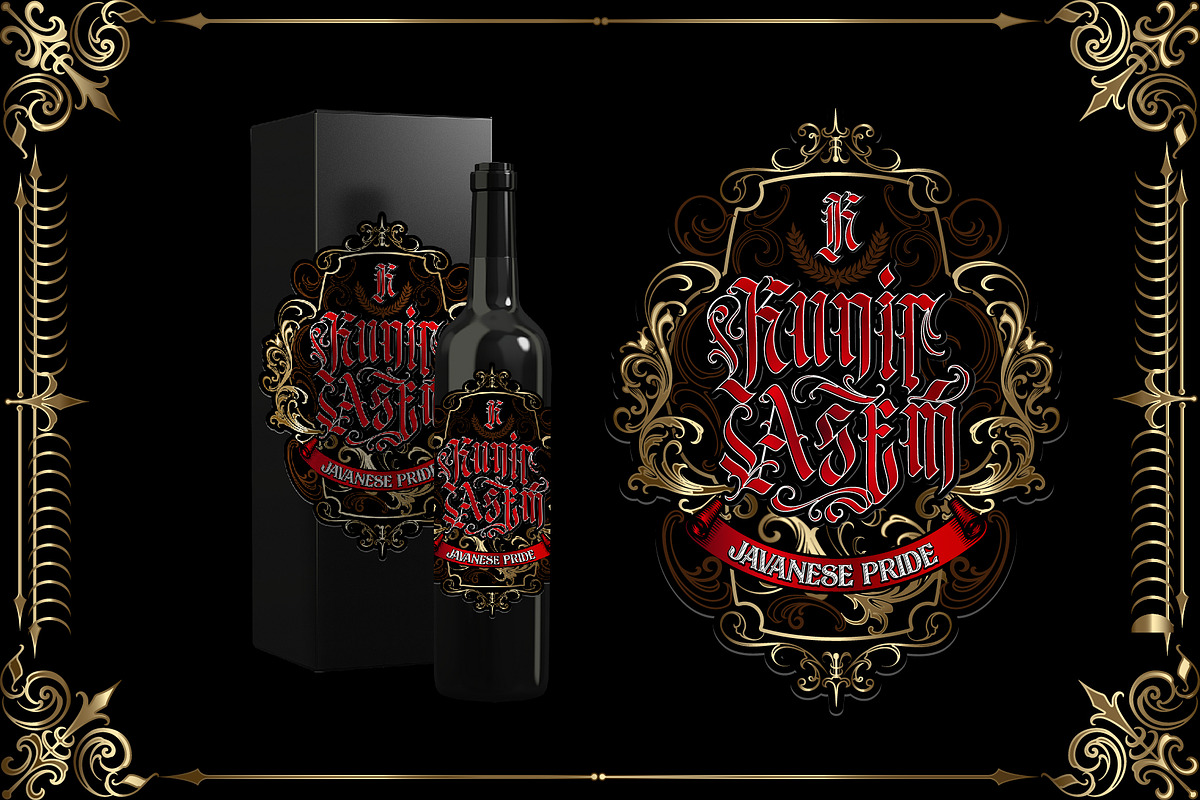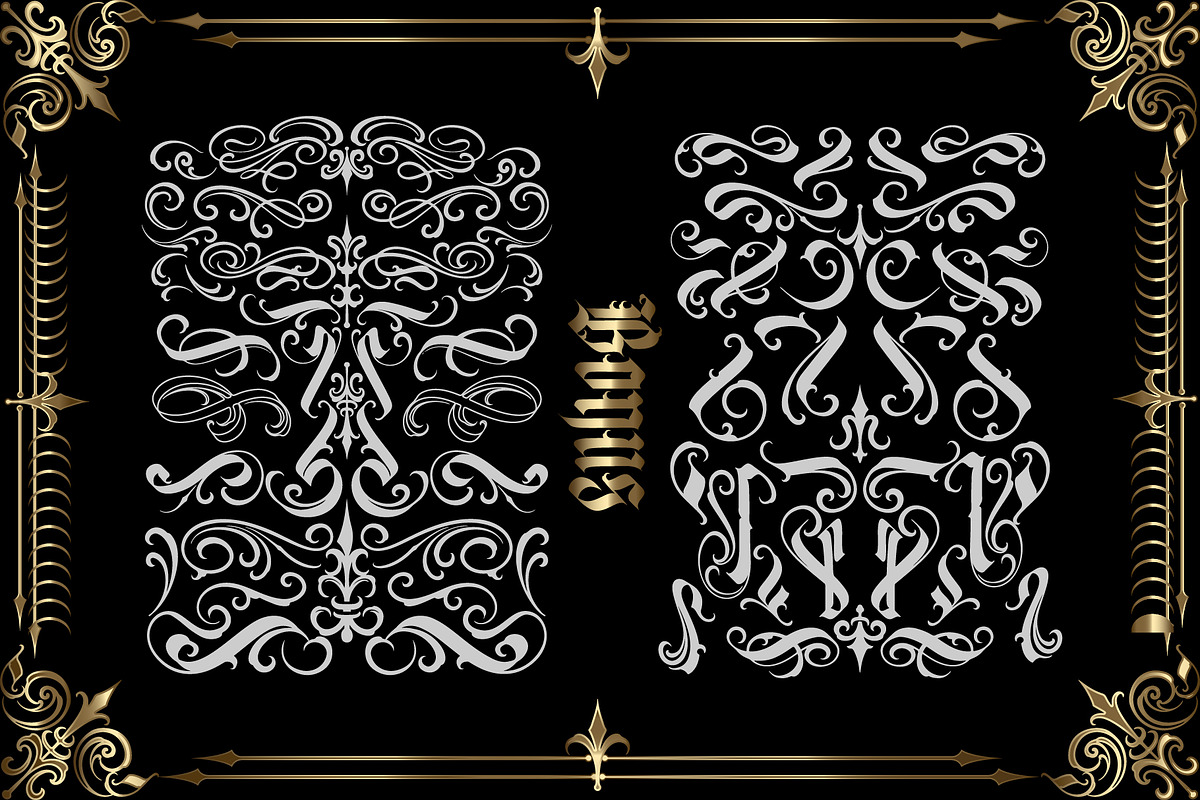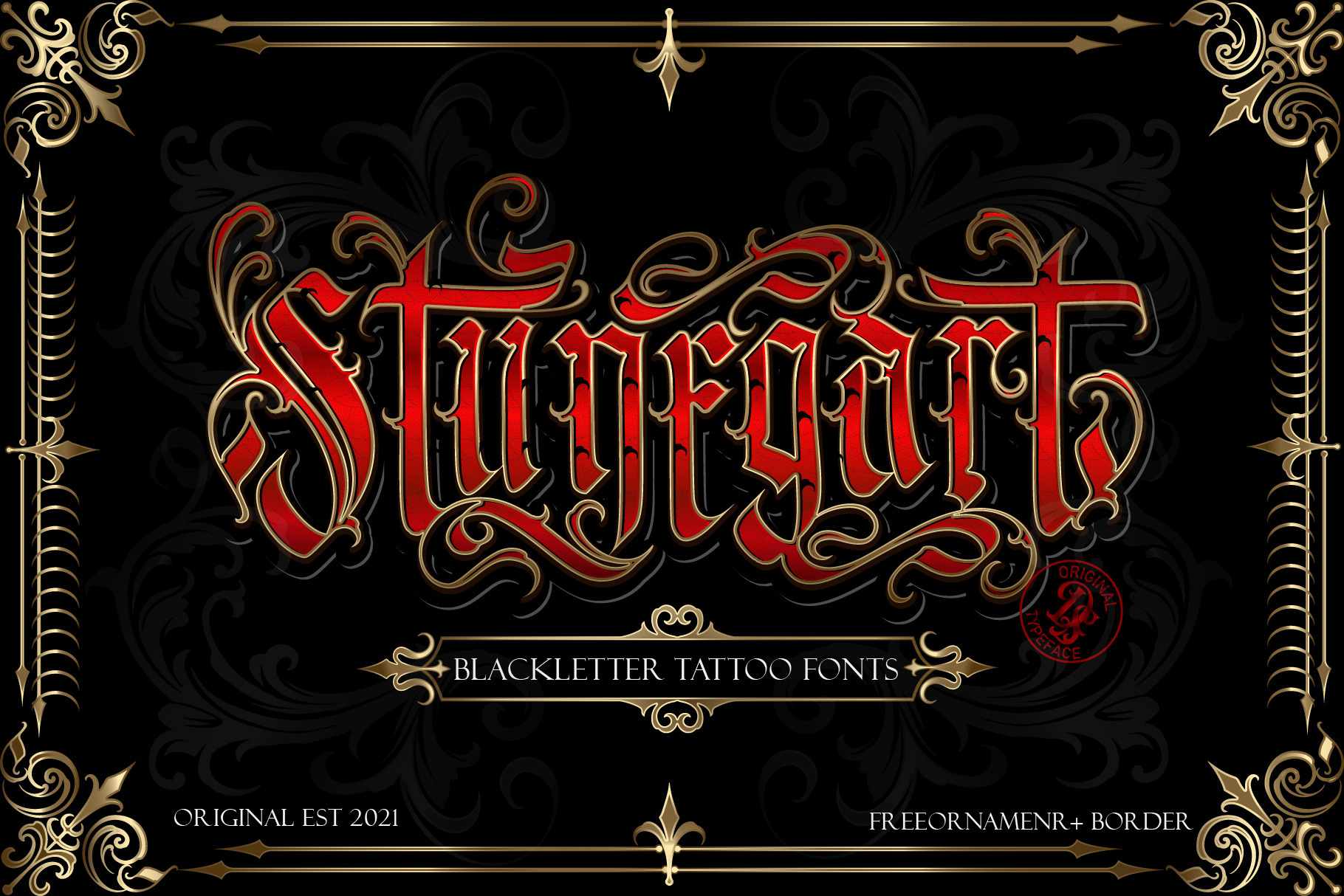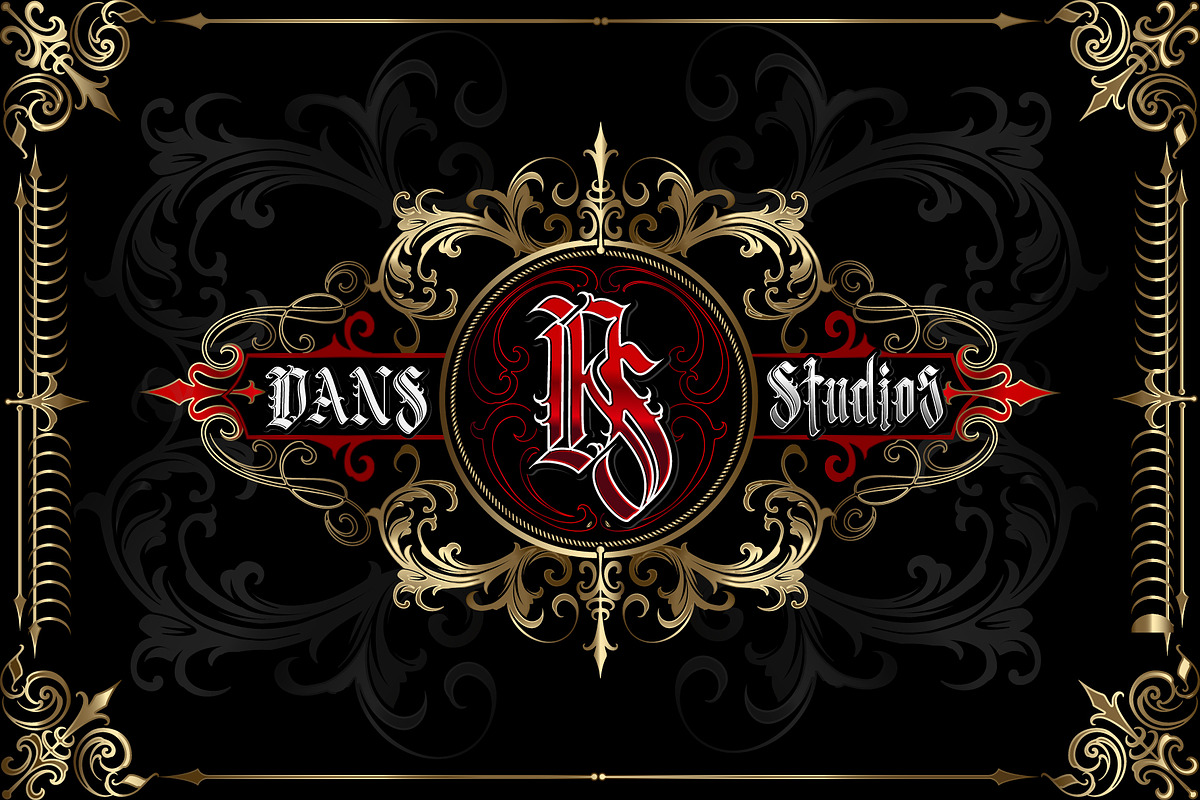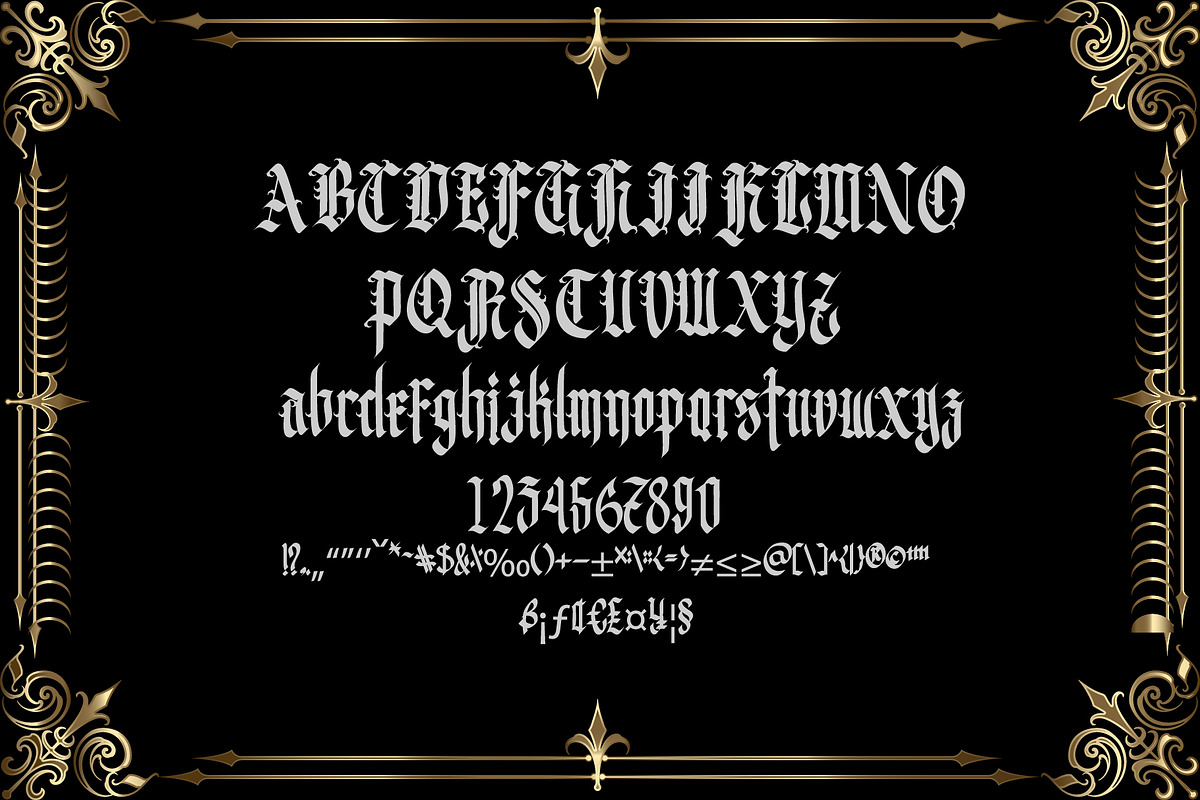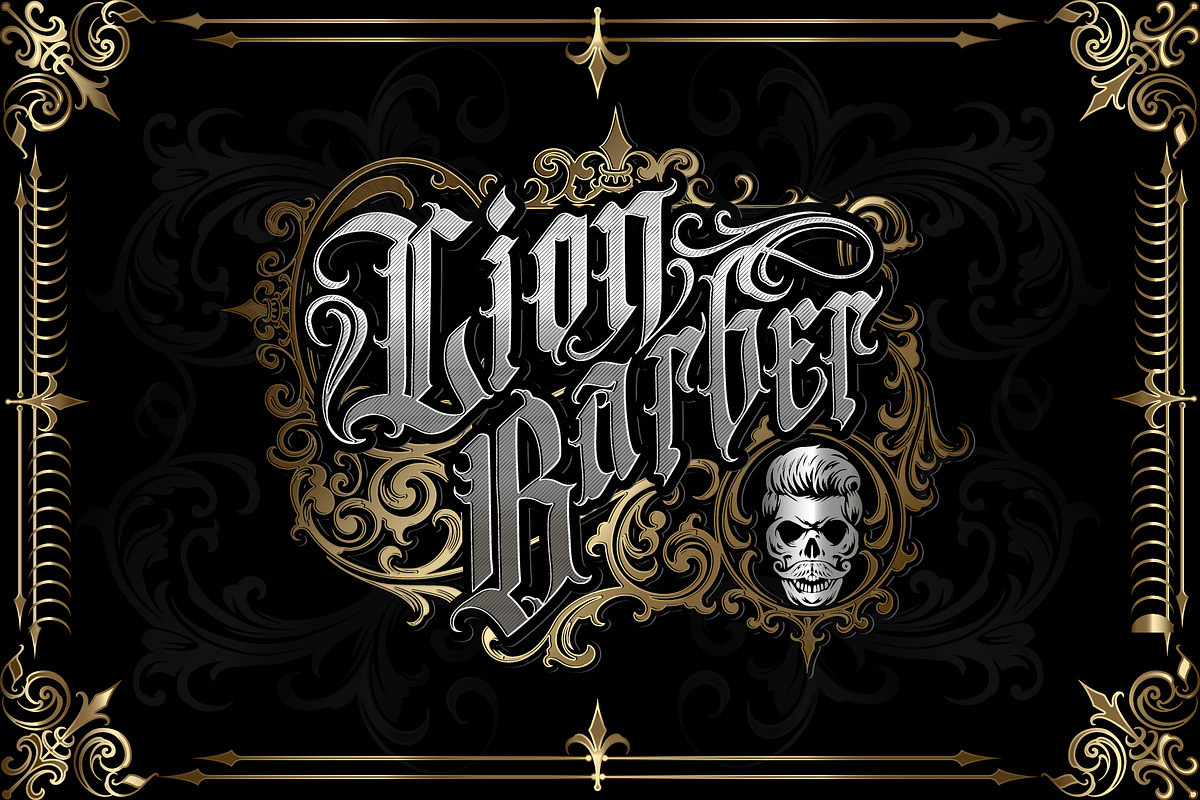
Stunegart FONT + Decorative
Dansdesign Proudly present our new product Stunegart FONT + Extra Ornament This font is made with references to various letters that I combine and design with my style.
Stunegart FONT + Extra Ornament are great and usefull for product logo, poster title, headline, packaging, badge, wedding card logo, clothing brand logo,Vintage design and much more
- Character Set A-Z (Uppercase & Lowercase)